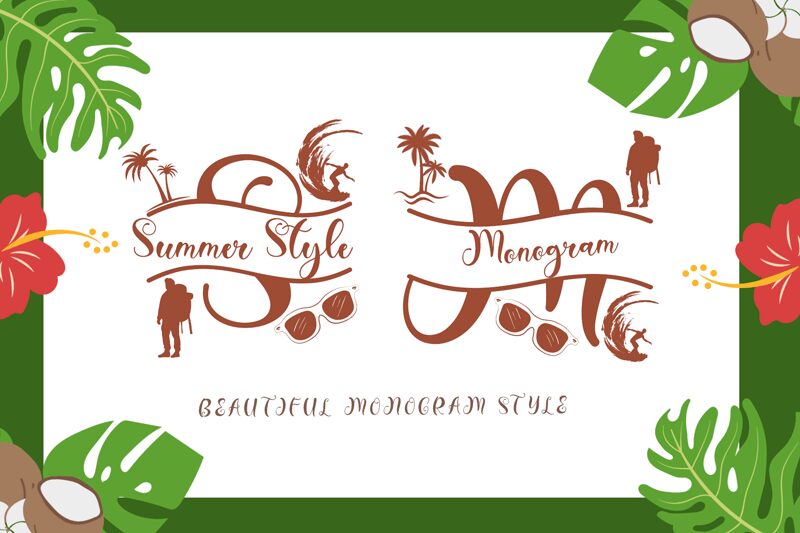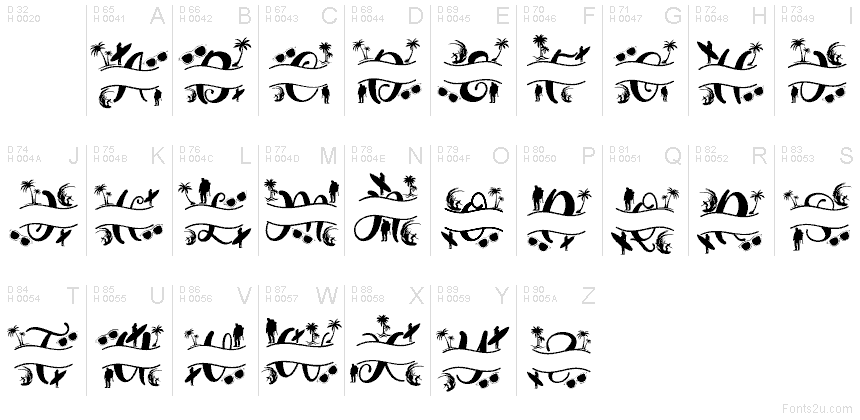
Summer Style Monogram
Summer Style Monogram font by Yoga Letter is a free decorative display typeface that looks like it was sketched with a breezy, inky brush. Its looping curves, leafy swashes, and playful curls feel sun-warmed and hand-drawn, giving every letter the charm of a custom logo or handcrafted sign. The rhythm is loose but intentional, so designs feel relaxed without slipping into chaos.
Using Summer Style Monogram, you can give wedding stationery, beach party invites, boutique branding, product packaging, social posts, tote bags, and T‑shirt designs a lush, summery personality. This free font shines when it’s large enough for the flourishes to breathe; pair it with a clean, light sans serif for supporting text to keep the artwork readable and let the monogram-style lettering steal the show.